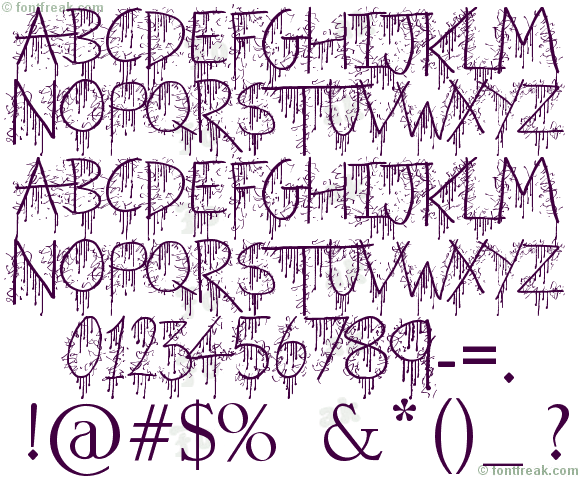
Beware of the Hogs
"Beware of the Hogs" by Jonathan S. Harris is a distinctive display font that captures attention with its unique character. This font features an intricate design characterized by a combination of thick and thin strokes, creating a dramatic contrast that enhances its visual appeal. The letters exhibit a playful yet edgy style, with decorative elements that resemble drips, adding an organic feel to the typography. The spacing between characters is generous, allowing the font to breathe while maintaining legibility, making it suitable for various creative applications.
This font is particularly well-suited for eye-catching projects such as promotional posters, where it can convey a sense of fun and excitement. It also works wonderfully for Halloween-themed invitations, lending an eerie yet whimsical touch that can elevate any event. Additionally, restaurant menus aiming for a casual or rustic vibe will find "Beware of the Hogs" to be an excellent choice, as it can evoke a sense of comfort and approachability. Graphic designers can use this font in branding for artisanal products or local businesses that want to emphasize their quirky personality. Content creators looking to make a statement in their online content will appreciate how this font stands out in social media graphics.
In a crowded marketplace of fonts, "Beware of the Hogs" stands out for its creative flair and versatility. It captures the essence of playful artistry while remaining functional for various design needs. The ability to access the "Beware of the Hogs font free download" opens doors for many who wish to incorporate this unique typeface into their projects without financial constraints. This font is not just a typeface; it’s a bold statement waiting to be part of your next creative endeavor.